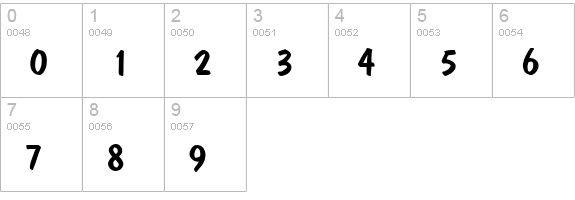
PolCasual-Regular is the standard, neutral variant in the PolCasual typeface family \xE2\x80\x94 well suited to general body text, paragraphs, and standard typographic work.
PolCasual-Regular is a charming and versatile font that exudes a sense of casual elegance. With its clean lines and modern yet friendly appearance, this font is perfect for a wide range of design projects, from branding to social media graphics. Its balanced proportions and smooth curves make it easy to read, while still adding a touch of personality to your text. What makes PolCasual-Regular even more appealing is that it is available for free download at FontsMarket.com. This means that you can easily access this stylish font without any cost, making it a valuable addition to your font collection. Whether you're working on a personal project or a professional design, PolCasual-Regular is sure to enhance your work with its contemporary and approachable style. Download it today and elevate your designs with this fantastic free font!